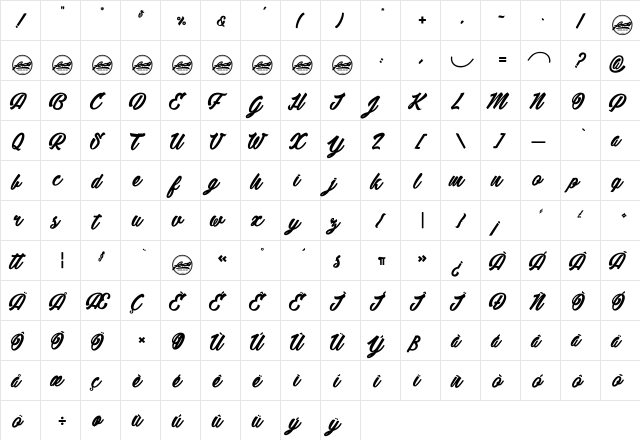
Detective Bildo_PersonalUseOnly Regular Font Preview
Detective Bildo_PersonalUseOnly Regular
Detective Bildo_PersonalUseOnly Regular Font Details
| Foundry | dcoxy Medina Gregory |
| Designer | dcoxy Medina Gregory |
Design Context for Detective Bildo_PersonalUseOnly Typeface
Detective Bildo_PersonalUseOnly is a composed and adaptable typeface that performs quietly and consistently across a wide range of design contexts.